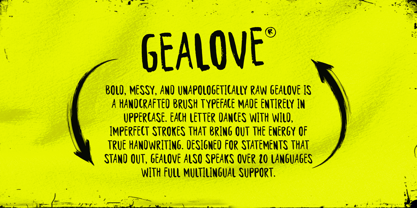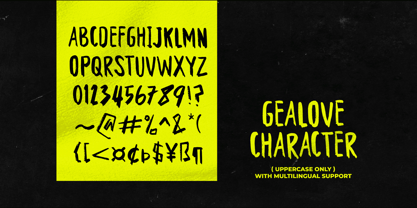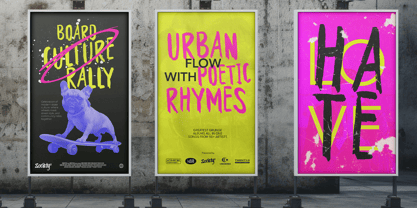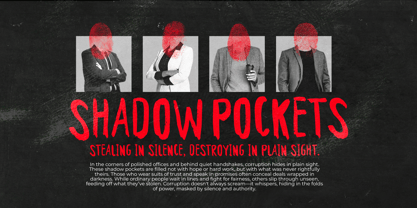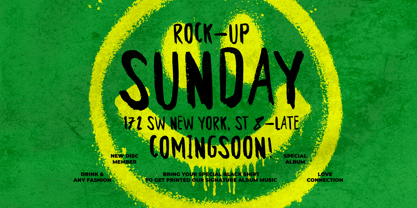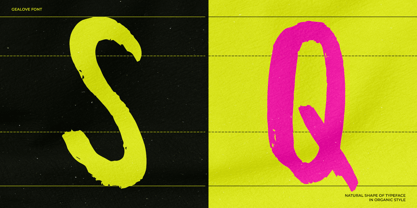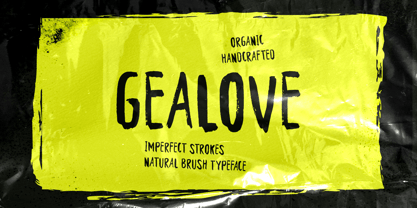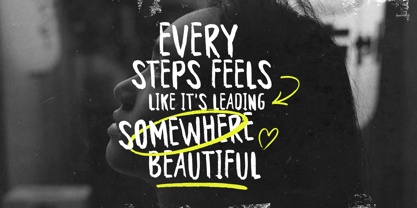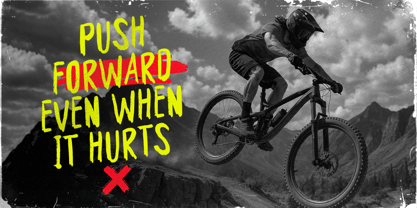
Gealove
by Gholib Tammami
The Gealove Font Family was designed by Gholib Tammami and published by Gholib Tammami. Gealove contains 1 styles. More about this family
A bold uppercase brush font that captures the raw energy of rebellion and self-expression. With its messy natural strokes and edgy hand-drawn style, Gealove is made for bold poster designs, underground band branding, album covers, and anything that dares to be different. Let your designs scream with attitude and character using this powerful typeface.
Designers: Gholib Tammami
Foundry: Gholib Tammami